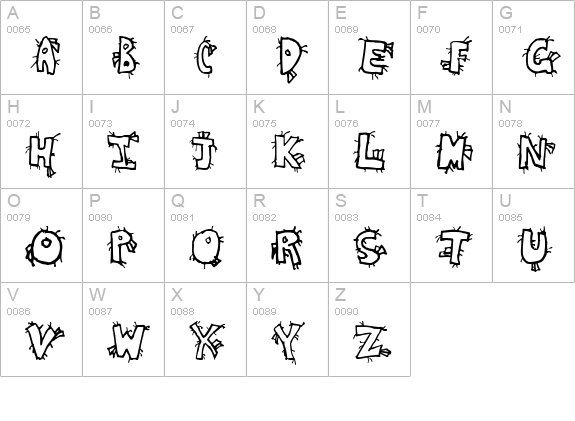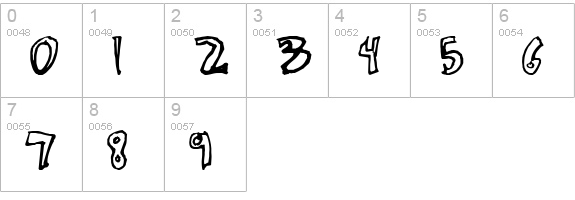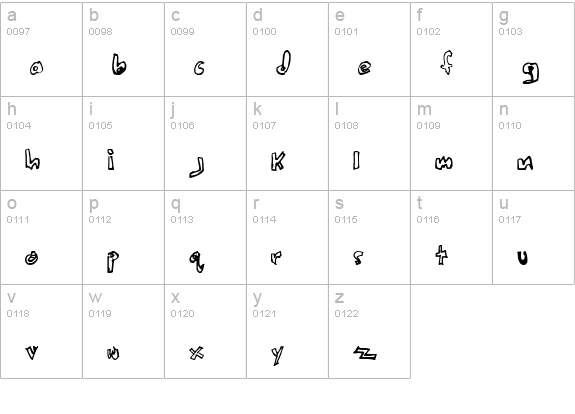
Crazy Beaver Font Details
Introducing Crazy Beaver font, a fun and quirky typeface that will add a playful touch to your designs. This font exudes a sense of energy and excitement, making it perfect for projects that require a bold and dynamic look. With its unique style and vibrant personality, Crazy Beaver is sure to make a statement and capture the attention of your audience. The best part? Crazy Beaver font is absolutely free to download at FontsMarket.com! This means you can easily add this eye-catching font to your collection without breaking the bank. Whether you're working on a poster, logo, or social media graphic, Crazy Beaver font will bring a touch of whimsy and creativity to your designs. Don't miss out on this fantastic font - download it today and let your creativity run wild!